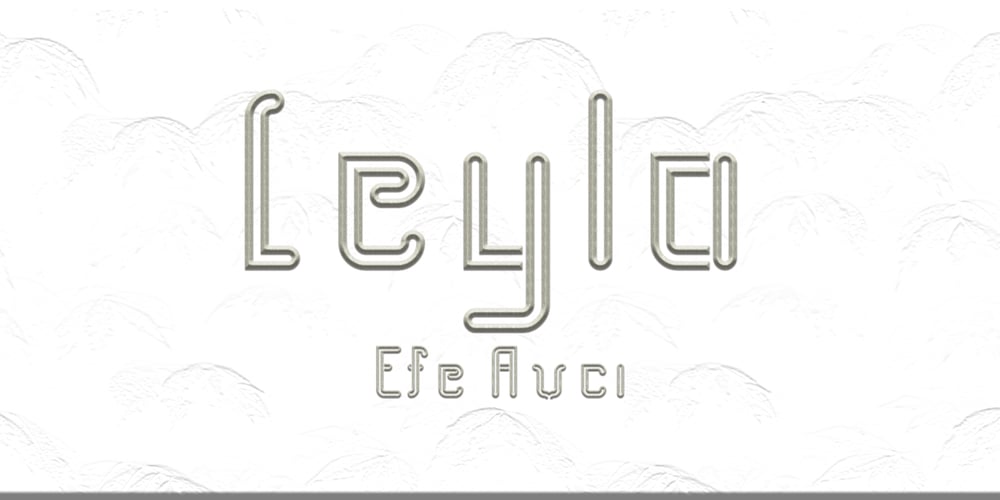
Leyla
Leyla font
Leyla Font Family was designed by Efe Avcı and published by Efe Avcı. Leyla contains 2 styles and family package options. It has a three-line design, a characteristic feature of which is its rounded shape.